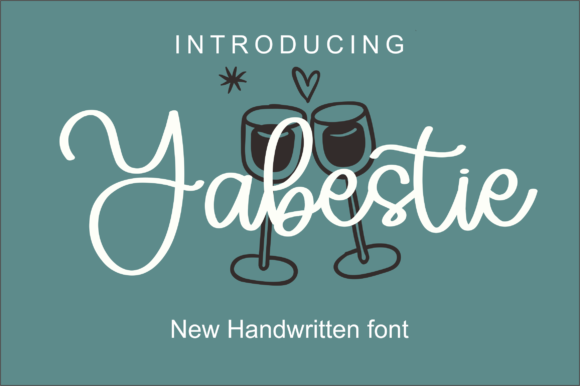
Yabestie Font
Introducing Yabestie, the Exquisite Script Font That Will Revolutionize Your Calendar Designs!
Step into a world of enchanting typography with Yabestie, the script font that will capture your heart and elevate your calendar designs to new heights. Inspired by the timeless elegance of classic calligraphy, Yabestie exudes a contemporary charm that is both captivating and sophisticated.
Its meticulously crafted characters dance across the page, effortlessly blending the grace of handwritten strokes with the precision of digital artistry. Each letter is a testament to the font's unwavering dedication to excellence, showcasing a harmonious balance between thin and thick lines, adding an alluring visual depth to your creations.
Whether you're crafting a family calendar to cherish memories or creating a promotional calendar to showcase your brand, Yabestie's versatility knows no bounds. Its contemporary aesthetic seamlessly complements any design theme, from minimalist and modern to vintage and whimsical.
Effortlessly Alluring: A Visual Symphony for the Senses
Yabestie's visual appeal is an irresistible symphony that captivates the senses. Its fluid strokes evoke a sense of effortless elegance, inviting you to immerse yourself in the beauty of written words. The carefully varied letterforms add a touch of playfulness and dynamism, ensuring that your designs remain visually engaging and captivating.
Timeless Elegance: A Classic Charm That Never Fades
With Yabestie, you'll enjoy a font that transcends time, embodying the timeless charm of classic calligraphy. Its graceful curves and refined details evoke a sense of nostalgia, while its contemporary twist ensures that it remains relevant and captivating in the modern design landscape.
Enhance Your Creations with Endless Possibilities
The versatility of Yabestie is a blank canvas for your creativity. Whether you're designing a calendar for personal use, a business, or a special event, this font will effortlessly elevate your projects. Its ability to capture attention and convey emotions makes it the perfect choice for creating truly memorable and impactful designs.
Yabestie: Your Secret Weapon for Unforgettable Calendar Designs
In the realm of calendar design, Yabestie is your secret weapon, the key to unlocking a world of captivating aesthetics and seamless functionality. Its timeless elegance and contemporary charm will leave a lasting impression on your audience, ensuring that your calendar designs stand out from the crowd.
Embrace the Beauty of Handcrafted Elegance
Yabestie is more than just a font; it's a testament to the beauty of handcrafted elegance. Each character has been meticulously designed to perfection, ensuring that your designs exude a sense of authenticity and artisanal charm.